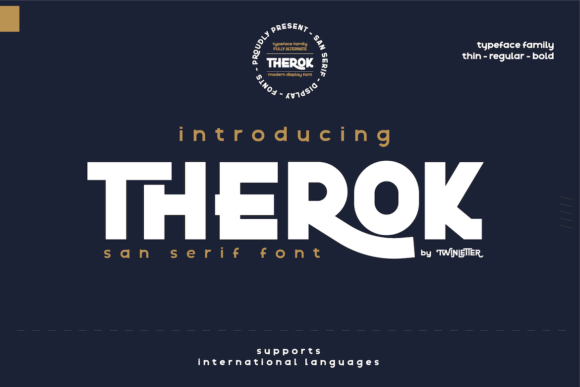
Embark on a typographic adventure with Therok Font, a captivating display font that exudes both speed and power. This masterpiece by twinletter is an indispensable tool for designers seeking to inject a bold and dynamic touch into their creations.
Therok Font is not merely a collection of letters; it's a gateway to unleashing your creative potential. Its sleek and assertive lines convey a sense of urgency and determination, making it an ideal choice for eye-catching banners that demand attention.
Imagine your designs radiating with the raw energy of Therok Font. Its assertive strokes will amplify the impact of your messages, ensuring they resonate with your audience on a profound level. Whether you're crafting promotional materials, website headlines, or social media graphics, Therok Font will elevate your designs to new heights of visual appeal.
Beyond its aesthetic prowess, Therok Font is remarkably versatile, effortlessly adapting to a wide range of design styles. Its bold presence complements modern and contemporary aesthetics, while its retro undertones lend a touch of nostalgia to vintage-inspired projects.
With Therok Font at your disposal, you'll discover a world of creative possibilities. Its versatility extends from dynamic logos to captivating posters, from adrenaline-fueled racing graphics to empowering fitness branding. Let Therok Font be your typographic ally, propelling your designs to the forefront of visual excellence.
Immerse yourself in the world of Therok Font and witness the transformative power of typography. Its bold strokes and commanding presence will ignite your creativity and leave an unforgettable impression on your audience. Add Therok Font to your design arsenal today and embark on a journey of visual storytelling that will captivate and inspire.